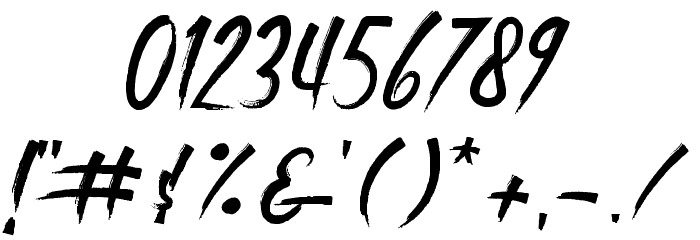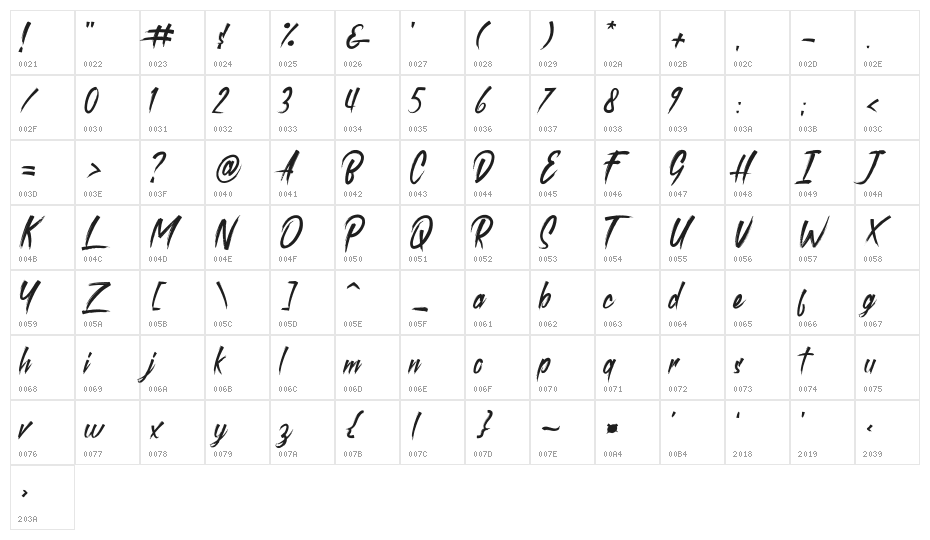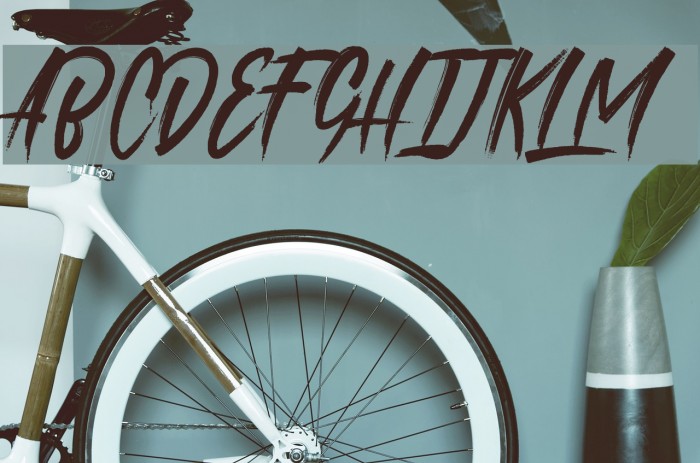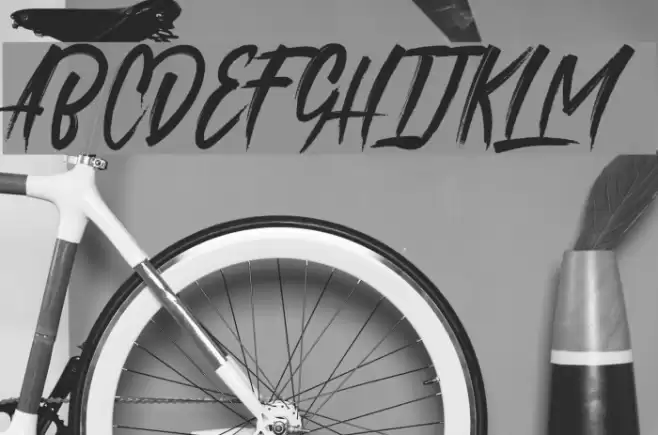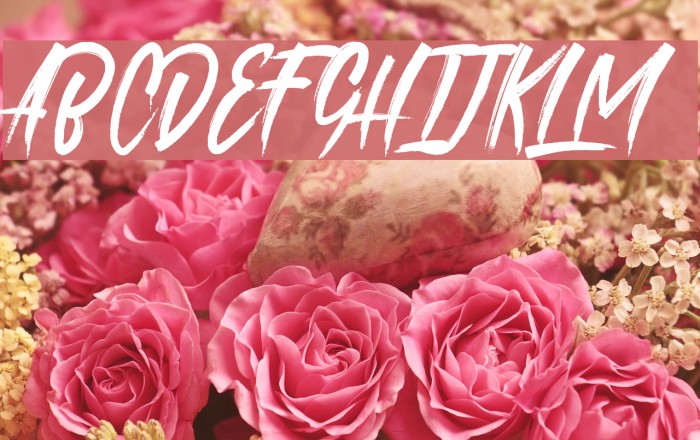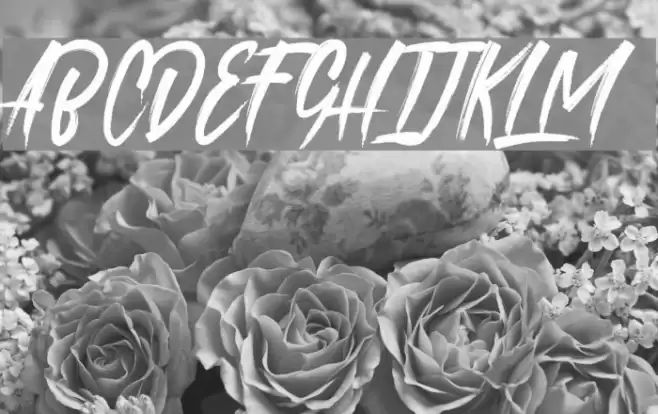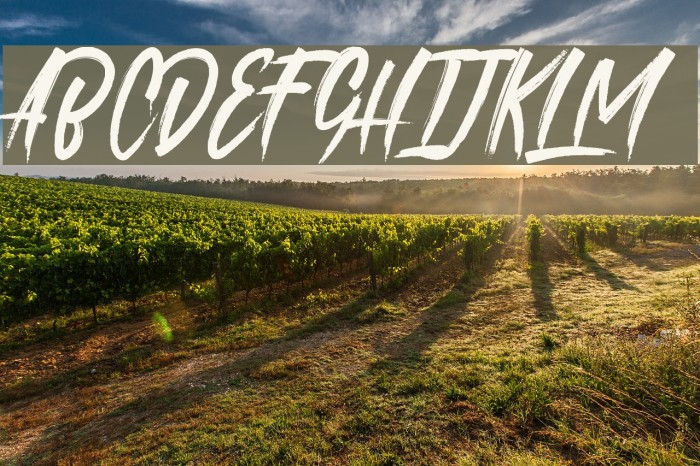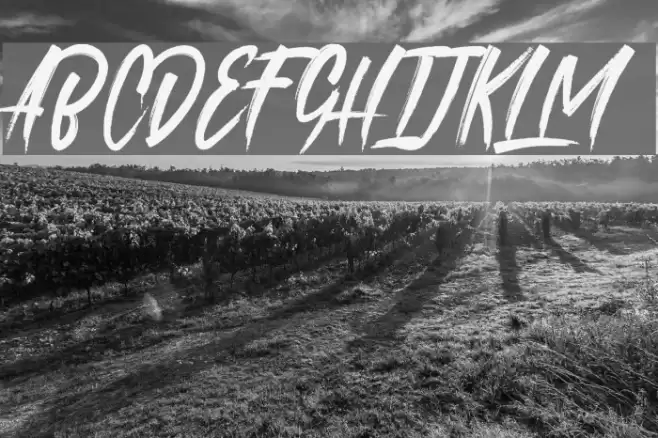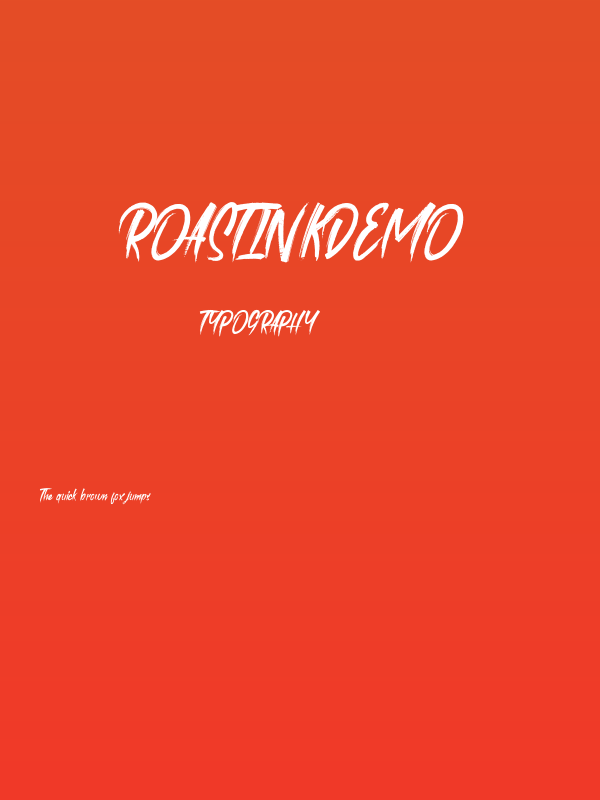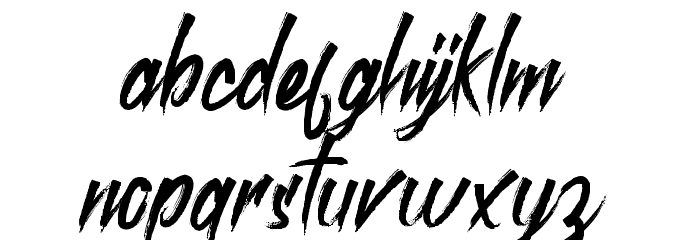
roastinkdemo Font
roastinkdemo Description
This font exhibits a bold and dynamic brush script style, characterized by its energetic strokes and expressive flair. The uppercase letters are tall and slightly slanted, giving a sense of motion and urgency. The lowercase letters maintain a consistent flow, with some characters featuring unique loops and curves that add to the font's personality. Numbers are equally bold, matching the overall aesthetic. The special characters are crafted with the same brush-like texture, ensuring uniformity across all glyphs. This font is ideal for projects that require a touch of creativity and boldness, such as branding, posters, and artistic designs.